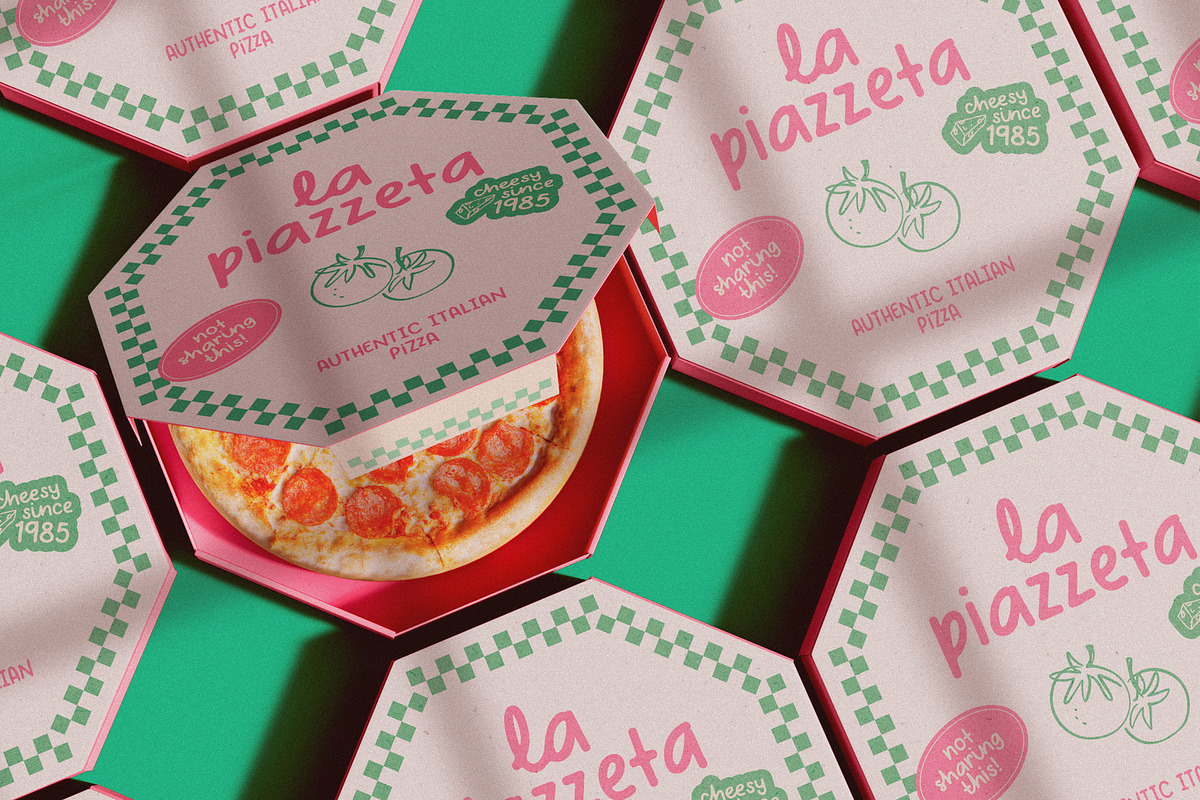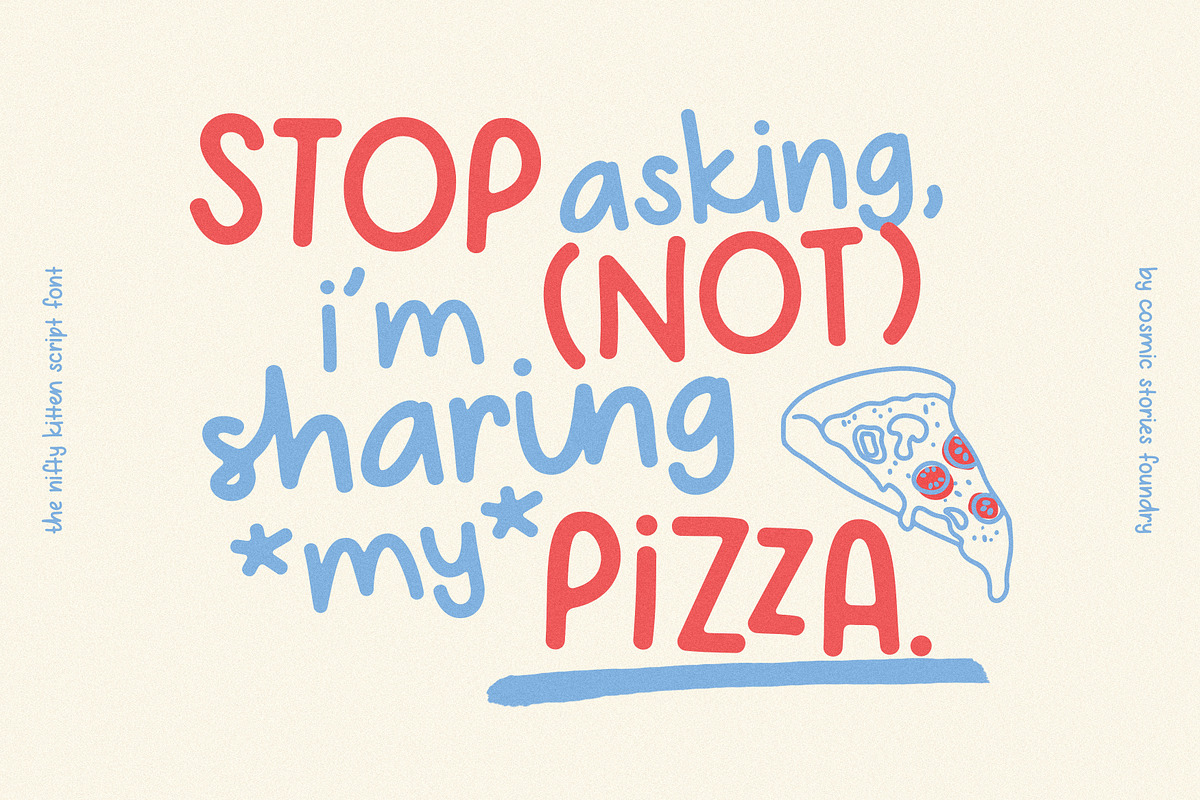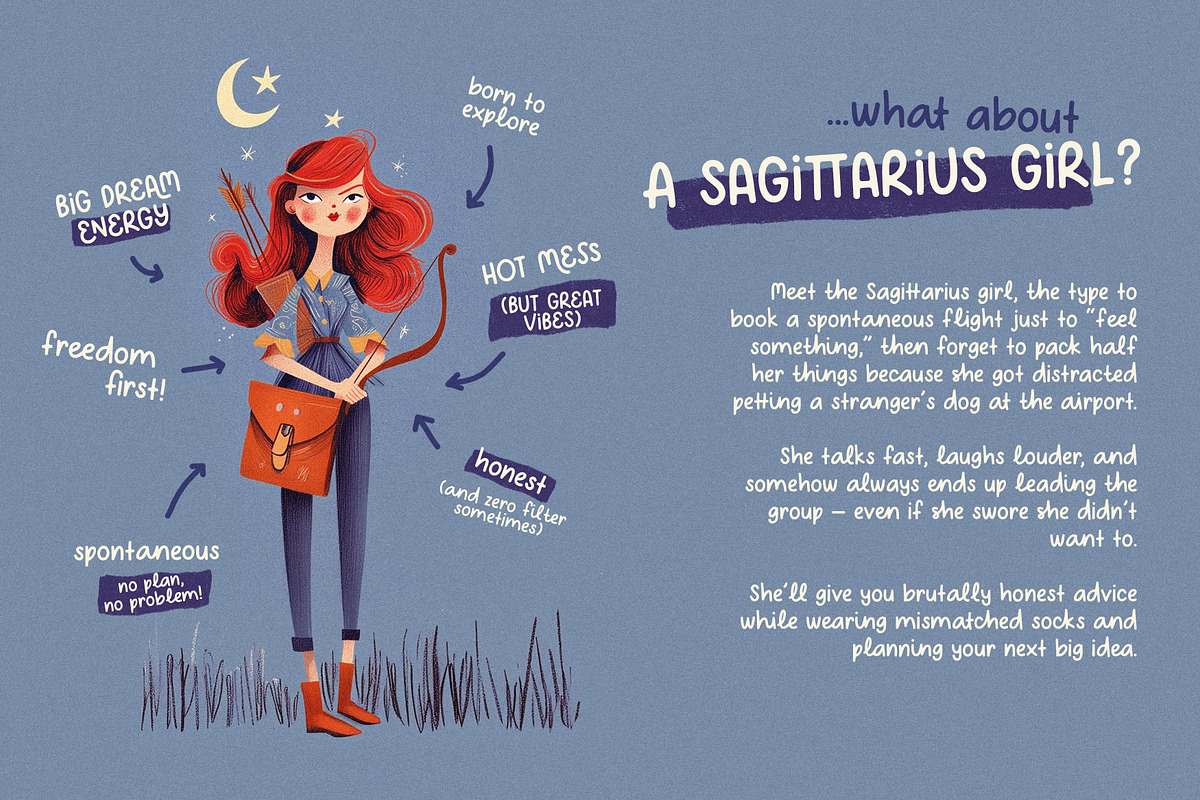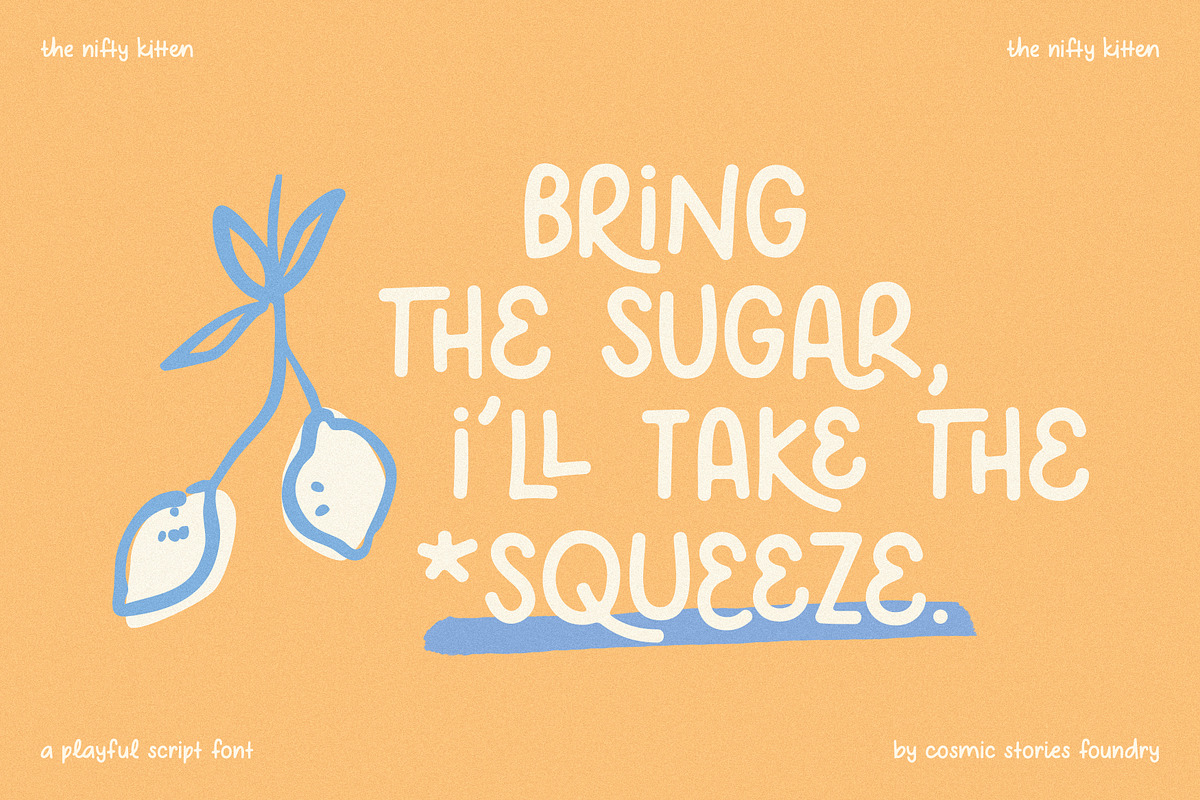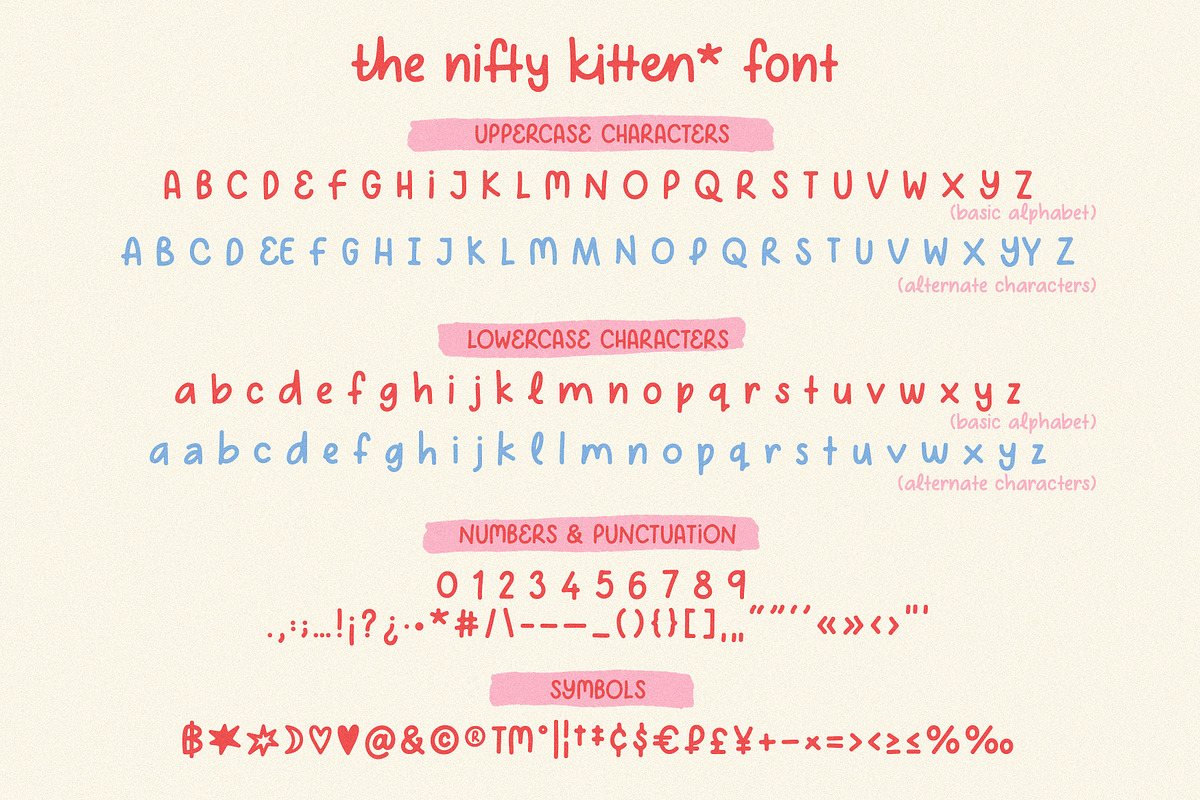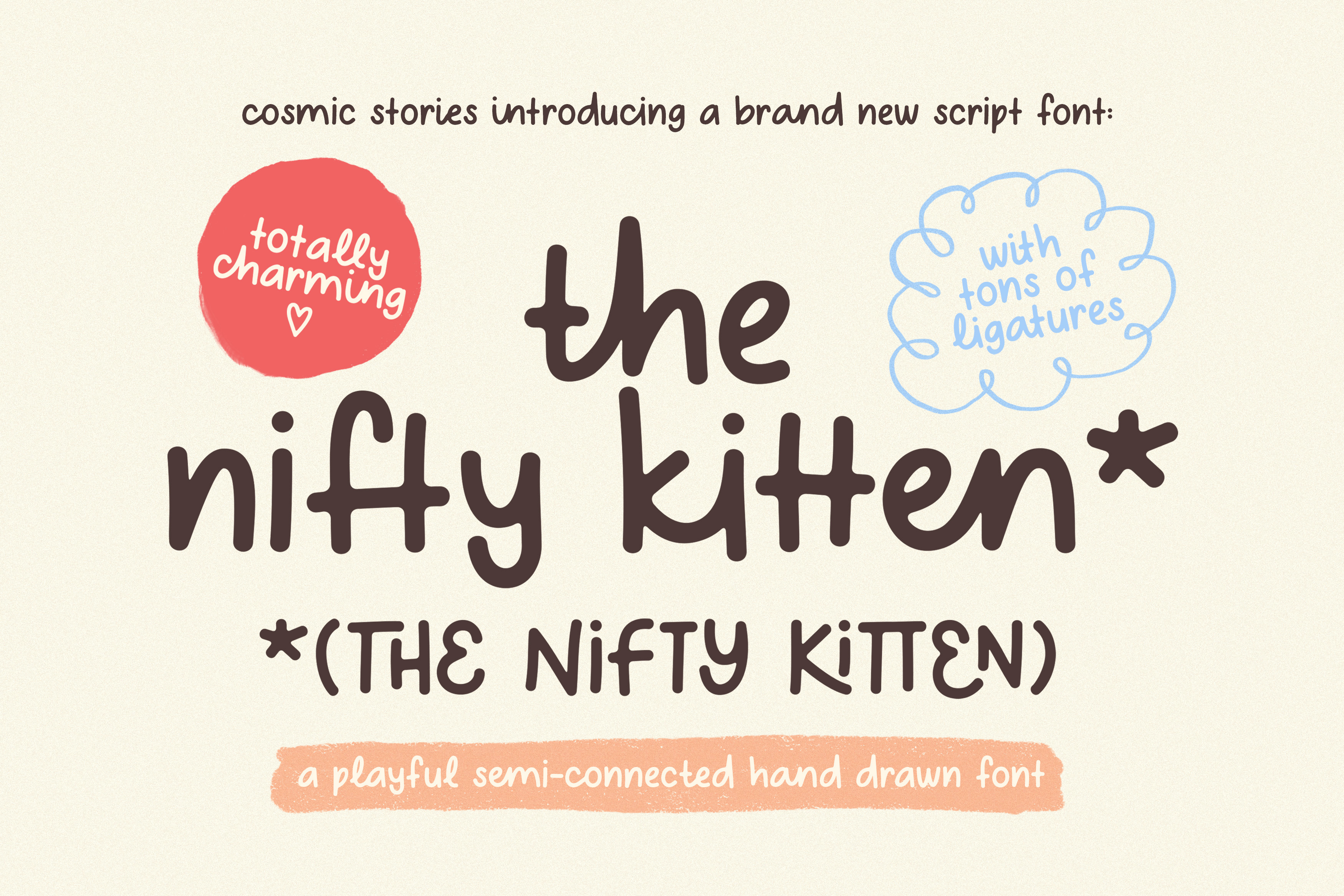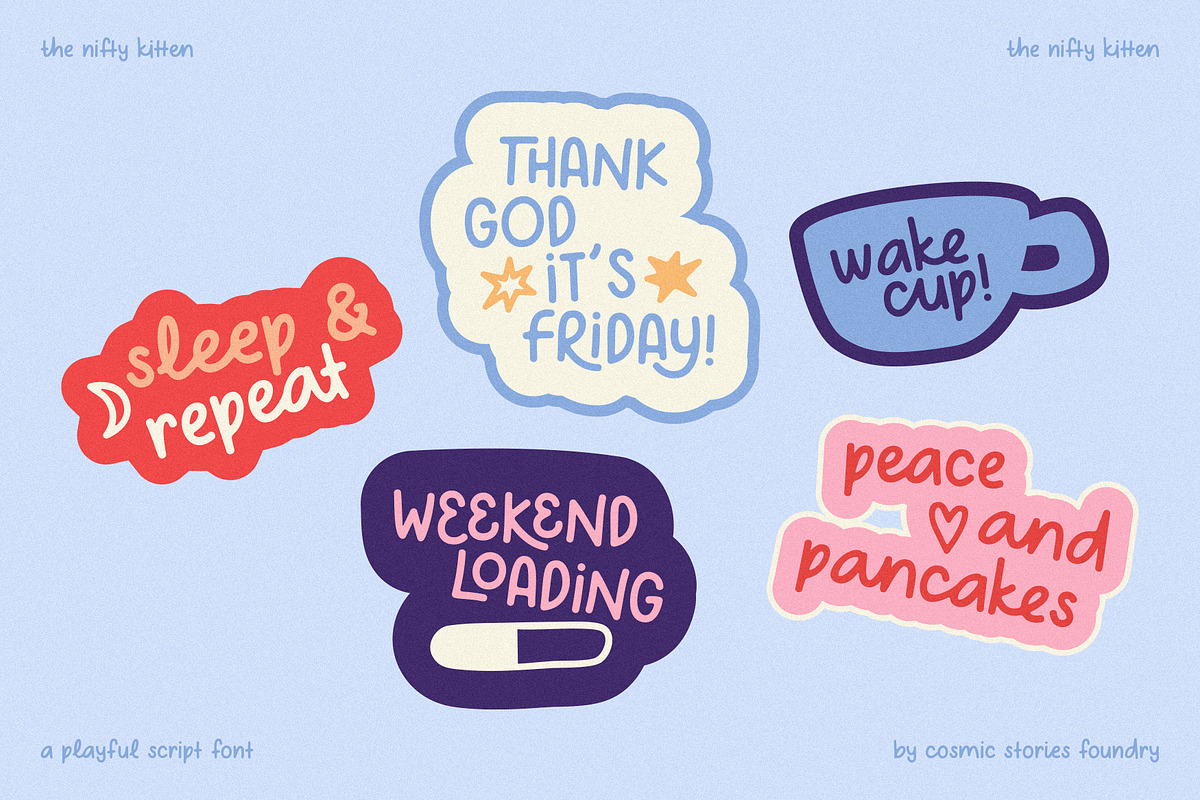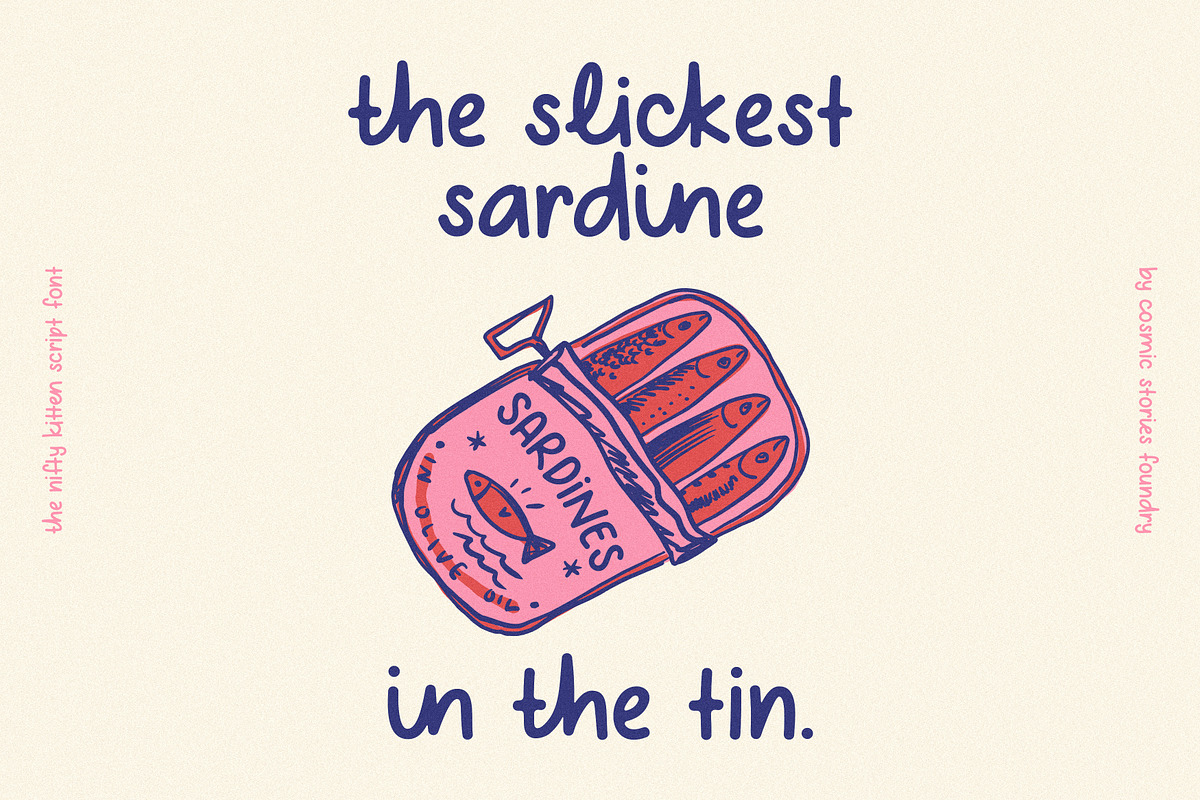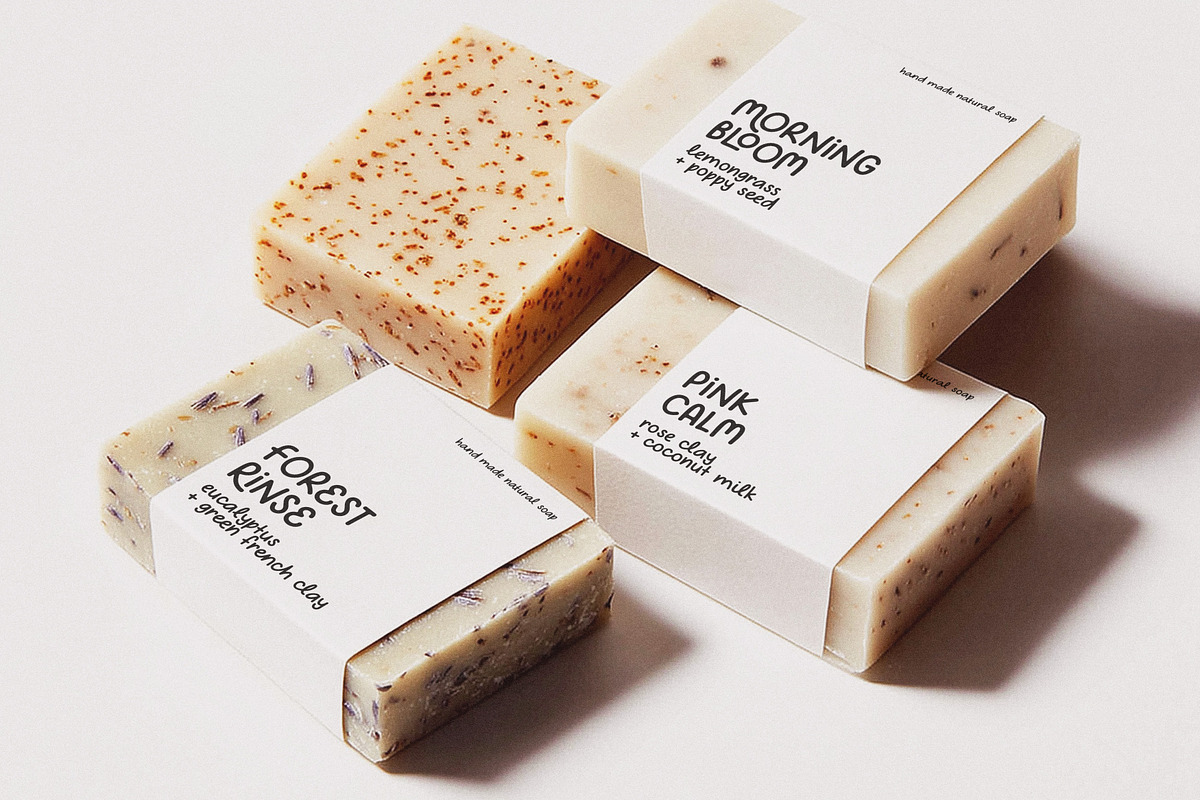
The Nifty Kitten Script Font
Introducing The Nifty Kitten Script font
A bold, handwritten script font that’s fresh, playful, and full of personality. With its imperfect, handcrafted style, this font is perfect for brands looking to add a unique, artisanal touch to their designs.
Thanks to its OpenType features, The Nifty Kitten offers endless combinations of characters and ligatures, letting you customize your designs with ease and creativity. Each letter comes with at least two different versions, giving you that authentic handmade vibe in every word. And with its OpenType features, identical adjacent letters automatically swap to alternative versions, making your designs even more unique and natural.
Whether you're creating a bold logo, a poster, cheeky quotes or anything in between, this font brings a relaxed, youthful vibe. Plus, with multilingual support, it’s ready to go global!
- More than 120 Ligatures & Alternates characters
- Multilingual support (Western, Central & Eastern European languages)